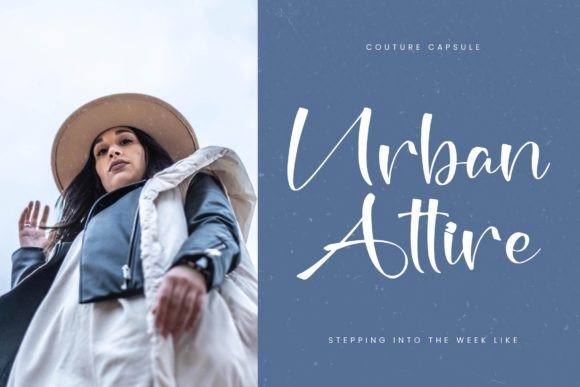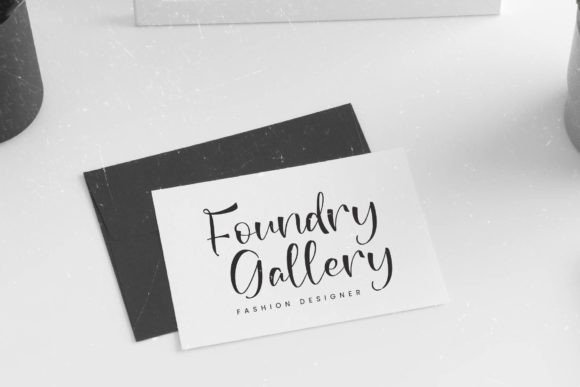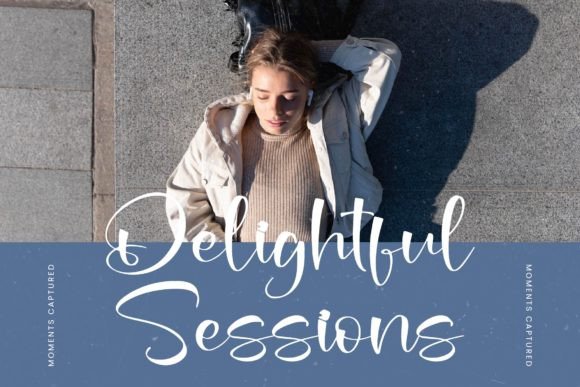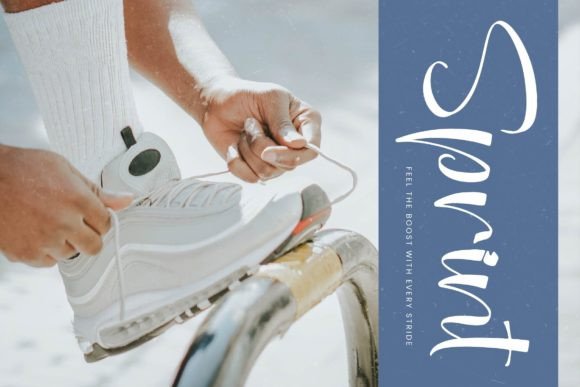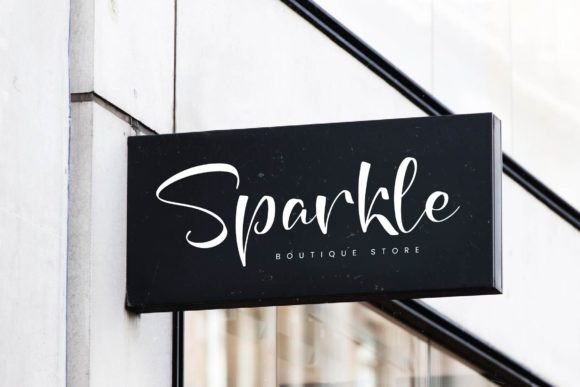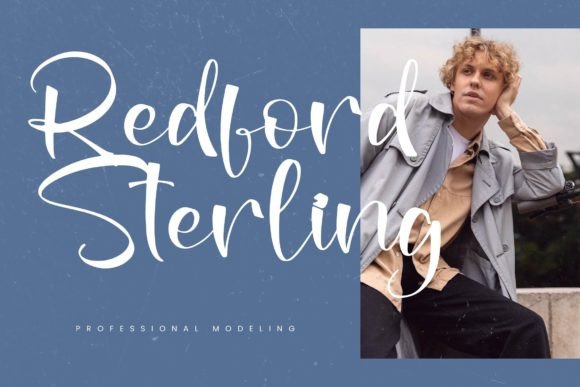
Introducing Anytime Explore: The Elegant Handwritten Font for Sophisticated Designs
In the world of typography, a well-crafted font can elevate a design from ordinary to extraordinary. For those seeking a touch of elegance and personality in their projects, Anytime Explore is a modern and charming handwritten font that is sure to impress. With its graceful, flowing strokes and sophisticated character, this refined font is perfect for upscale invitations, personal branding, and chic editorial designs.
The Characteristics of Anytime Explore
Anytime Explore boasts a unique blend of modernity and classic charm. Its handwritten strokes are fluid and dynamic, giving the font a sense of movement and energy. The characters are carefully crafted to exude a sense of sophistication and elegance, making it ideal for designs that require a touch of refinement. The font’s versatility is also noteworthy, allowing it to be used in a variety of contexts, from formal invitations to editorial designs and personal branding.
Perfect for Upscale Invitations and Personal Branding
Anytime Explore is particularly well-suited for upscale invitations, such as wedding invitations, gala invitations, and other formal events. Its elegant and refined character makes it perfect for creating a lasting impression on guests. Additionally, the font’s sophisticated and charming nature makes it an excellent choice for personal branding, allowing individuals to establish a unique and memorable identity.
Chic Editorial Designs and Beyond
Beyond invitations and personal branding, Anytime Explore is also an excellent choice for chic editorial designs, such as fashion magazines, lifestyle blogs, and upscale publications. The font’s modern and charming nature makes it perfect for headlines, titles, and other design elements that require a touch of elegance and sophistication. Furthermore, the font’s versatility allows it to be used in a variety of other contexts, including packaging design, advertising, and digital media.
Why Choose Anytime Explore?
So, why choose Anytime Explore over other fonts? Here are just a few reasons:
- Elegance and Sophistication: Anytime Explore exudes elegance and sophistication, making it perfect for designs that require a touch of refinement.
- Versatility: The font’s versatility allows it to be used in a variety of contexts, from formal invitations to editorial designs and personal branding.
- Modern and Charming: Anytime Explore boasts a modern and charming nature, making it perfect for designs that require a touch of personality and style.
- Easy to Read: The font’s clear and legible design makes it easy to read, even in smaller sizes.
Tips for Using Anytime Explore
To get the most out of Anytime Explore, here are a few tips:
- Use it as a Headline Font: Anytime Explore is perfect for headlines and titles, where its elegance and sophistication can be showcased.
- Pair it with Other Fonts: The font pairs well with other fonts, allowing you to create a unique and memorable design.
- Experiment with Colors: Anytime Explore looks great in a variety of colors, so don’t be afraid to experiment and find the perfect hue for your design.
In conclusion, Anytime Explore is a modern and charming handwritten font that is sure to elevate your designs to new heights. With its elegant and sophisticated character, versatility, and modern charm, this refined font is perfect for upscale invitations, personal branding, and chic editorial designs. Whether you’re a designer, craft, or simply someone looking for a unique and memorable font, Anytime Explore is an excellent choice.